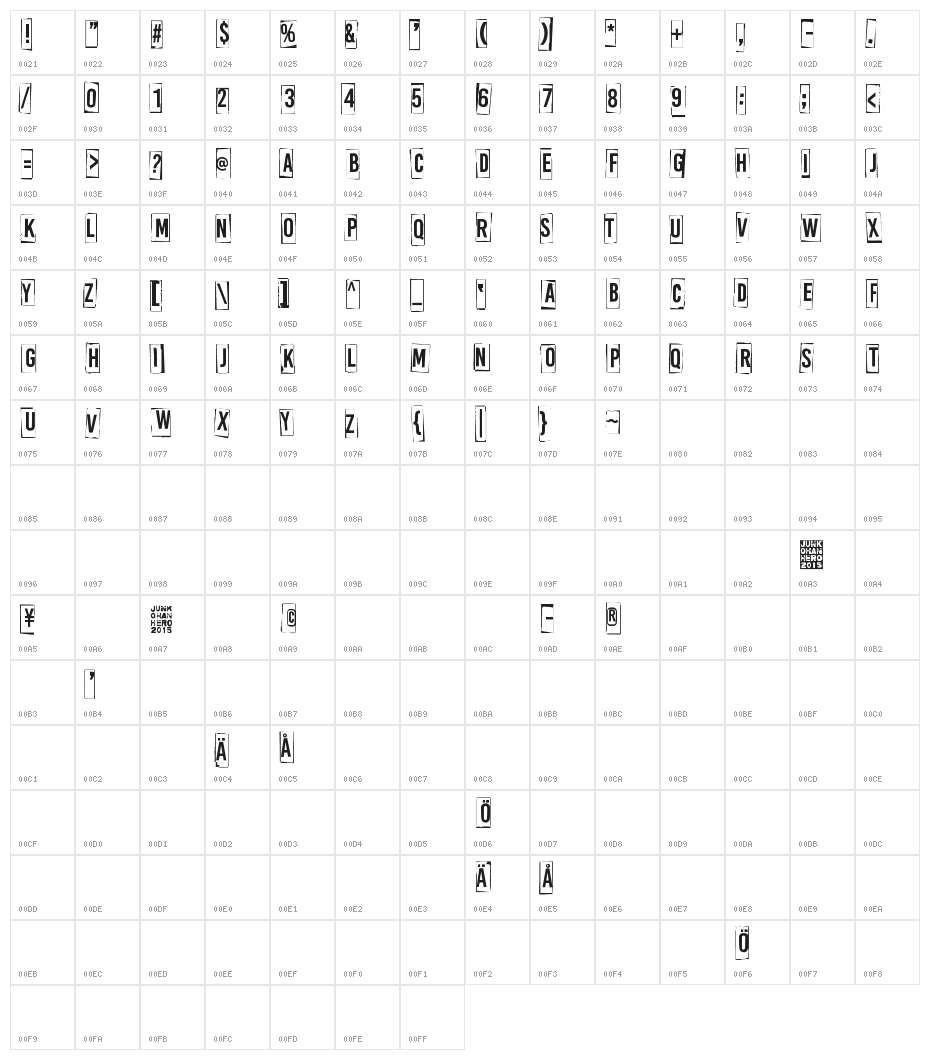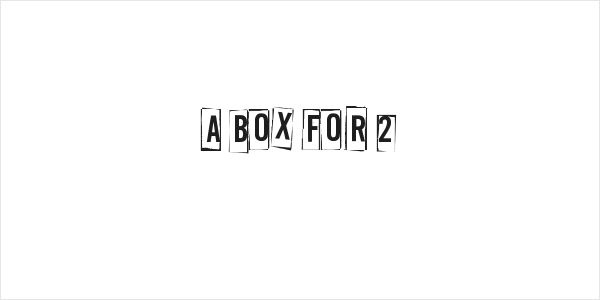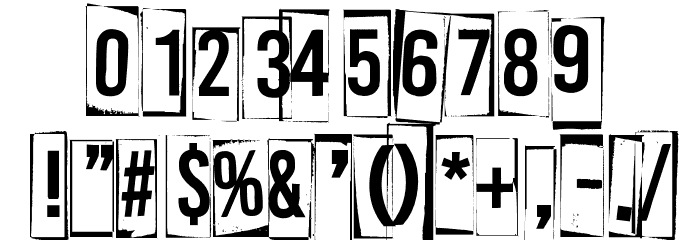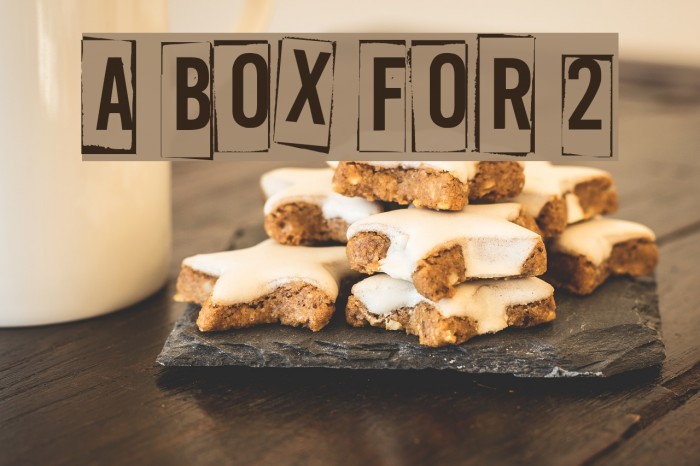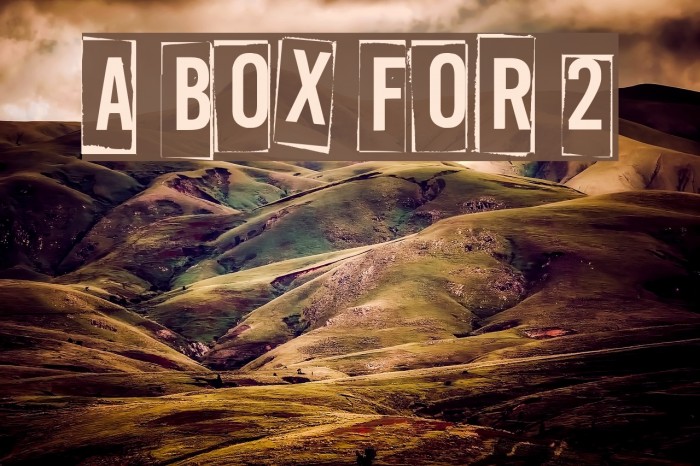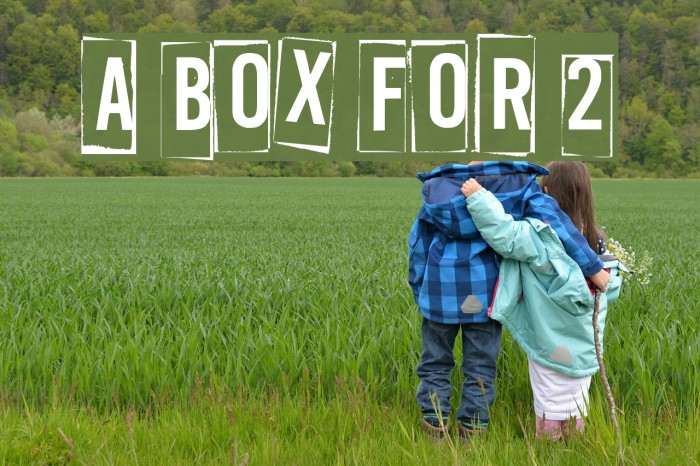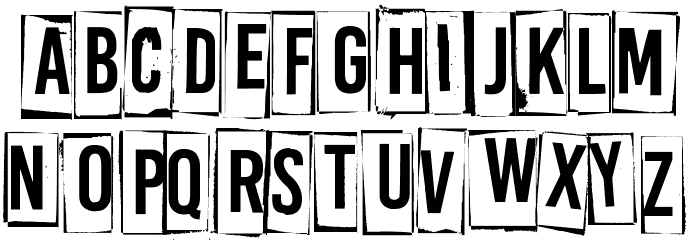
A Box For 2 Font
A Box For 2 Description
This font features a bold, blocky style with a distressed, grunge effect. Each character is enclosed in a box, giving it a unique, cut-out appearance reminiscent of old newspaper clippings or ransom notes. The letters are uppercase and lowercase, with numerals and a variety of special characters. The distressed texture adds a vintage, rugged feel, making it ideal for projects that require a bold statement or an edgy, rebellious look.
| Overall Style | Vintage, Grunge |
| Proposed Projects | Ideal for posters, album covers, rebellious branding, or any design needing a bold, vintage touch. |